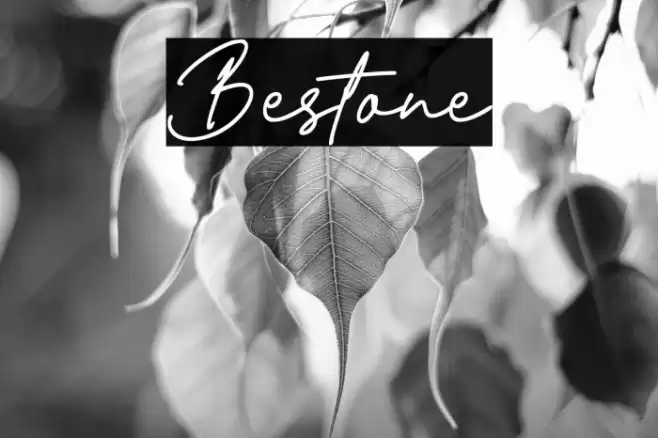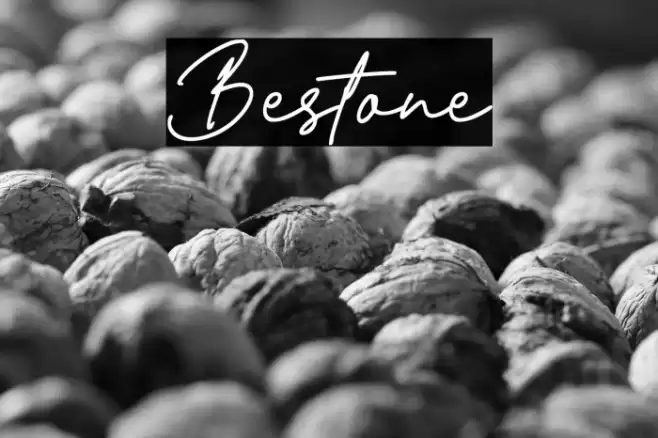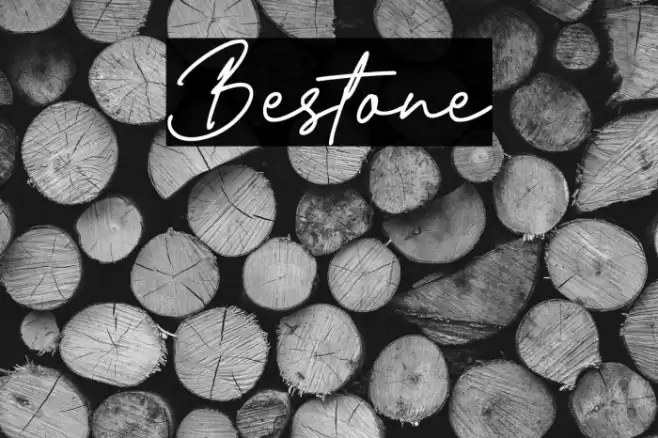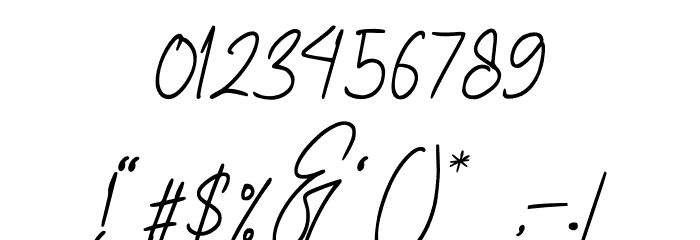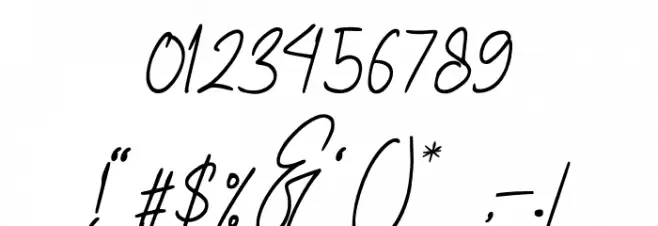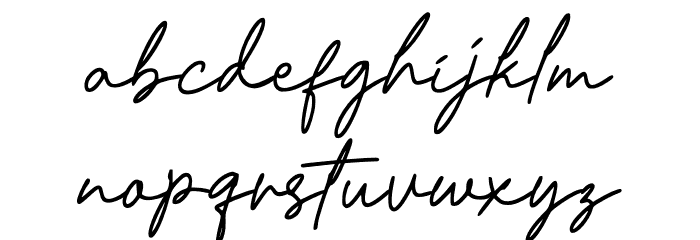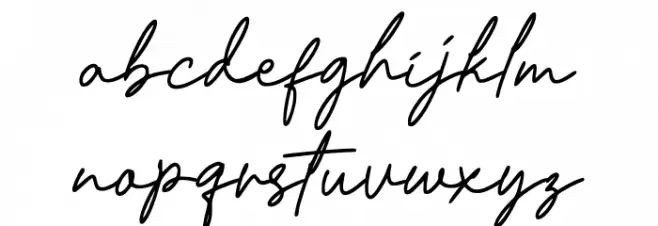
Bestone Font
Bestone Description
This font exudes a casual yet elegant handwritten style, characterized by its fluid and connected strokes. The uppercase letters are tall and slightly slanted, giving a sense of motion and dynamism. The lowercase letters maintain a consistent flow, enhancing readability while preserving a personal touch. Numbers are clear and distinct, matching the overall aesthetic. Special characters are thoughtfully designed, integrating seamlessly with the rest of the typeface. This font is versatile, suitable for projects that require a personal or artistic flair, such as invitations, greeting cards, or branding materials. Its unique style makes it stand out while remaining legible and appealing.
A fluid, elegant handwritten font with a personal touch from Script fonts.
- Font: Bestone
by glyphstyle - Weight: Regular
- Proposed Projects: Ideal for invitations, greeting cards, branding, and artistic projects.
- Overall Style: Elegant, Casual
- Use Case: Logos, Headlines, Artistic projects